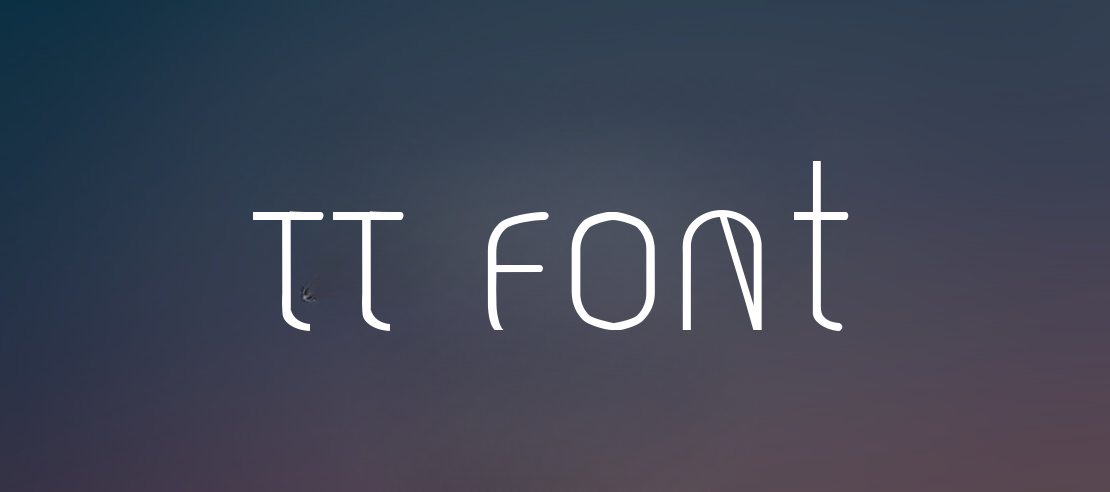
TT Font was designed by Toshi Omagari, a typeface designer at Linotype GmbH in Germany. The font is a neo-grotesque decorative typeface. It was released in 2010.
It has a large x-height and wide proportions. The letterforms are open and have a large aperture. The font includes a variety of weights and styles.
This typeface is used for both text and display purposes. It is suitable for headlines, body copy, and web design. The font has been used by notable publications such as The Guardian, Wired, and Fast Company.
TT texture is a versatile typeface that can be used in a variety of applications. It is a good choice for both print and web design. You can utilize it with mexon font. The font is available in both regular and bold weights. It is also available in italic, light, and black styles.
Creator of TT Font
TT Font was designed by Toshi Omagari, a typeface designer at Linotype GmbH in Germany.
This single, appealing style incorporates several elements, such as capital and lowercase letters, numbers, punctuation, characters, special, symbols, glyphs, and language support.
View of TT Font
| Name | TT Font |
| Style | Decorative |
| Designer | Ryoichi Tsunekawa |
What is TT Font?
TT Typeface is a neo-grotesque decorative typeface designed by Toshi Omagari. It was released in 2010.
How do I use TT Font?
You can use TT Text for both text and display purposes. It is suitable for headlines, body copy, and web design.
What are the different weights and styles of TT Font?
The font includes a variety of weights and styles such as regular, bold, italic, light, and black.